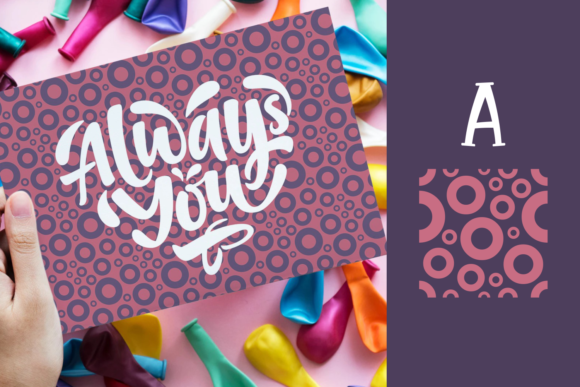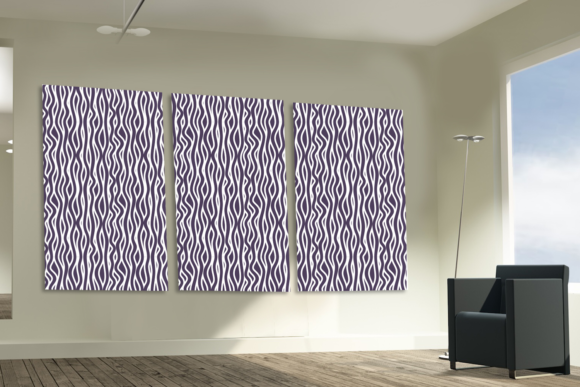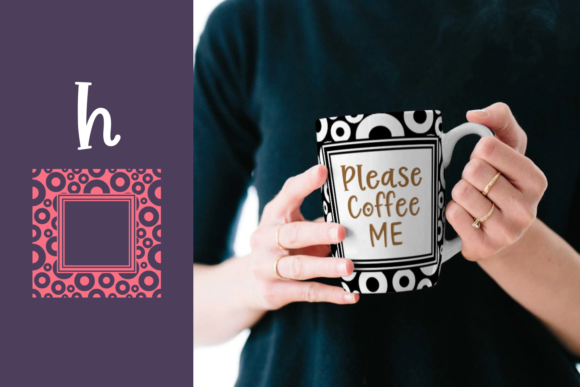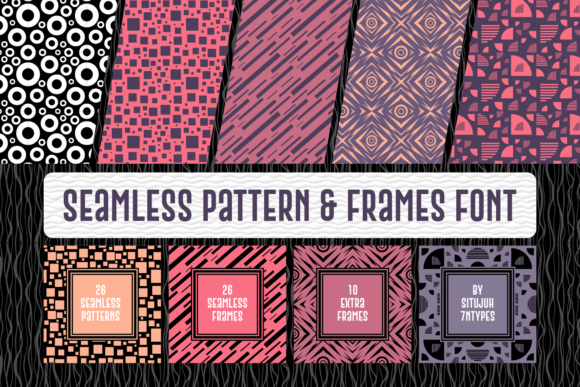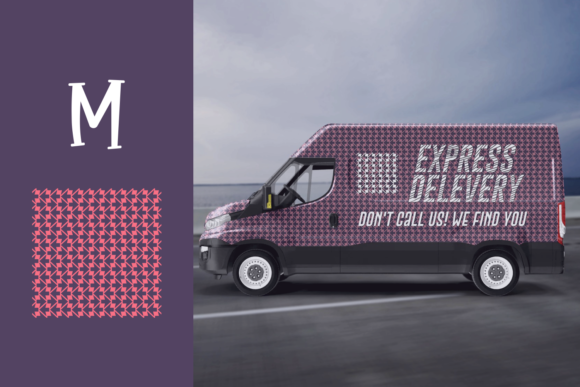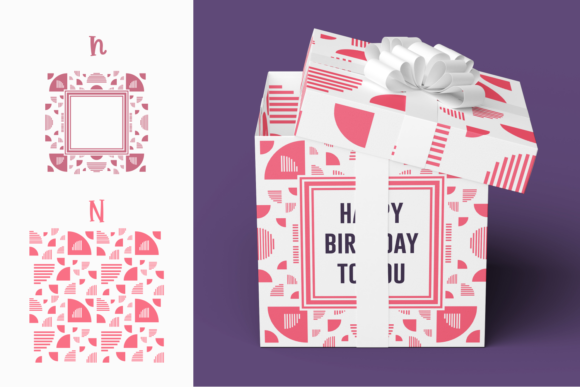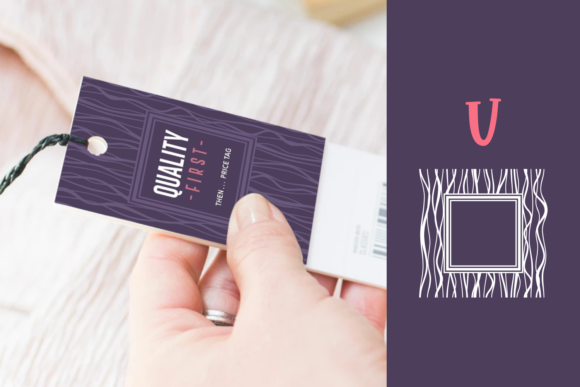
Seamless Pattern & Frames Font
About Seamless Pattern & Frames Font
Introducing our amazing Patterns and Frames dingbat font! This font is packed with a wide variety of patterns and frames that will add a unique and artistic touch to your designs. From squares and arrows to circles and abstract patterns, this font offers a diverse range of options for all your design needs.
Here’s how you can make the most of this incredible dingbat font:
1. Background Patterns: Use the patterns from the font to create stunning backgrounds for your designs. Whether it’s for posters, invitations, or digital artwork, the patterns will instantly add depth and visual interest to your compositions.
2. Frame Your Content: Choose from a range of beautifully designed frames to enclose your text, images, or other visual elements. The frames will give your content a polished and professional look, making it stand out in any design project.
3. Decorative Elements: The dingbat font also includes various decorative elements such as swirls, flourishes, and ornaments. These can be used to embellish your designs, adding a touch of elegance and sophistication.
4. Seamless Patterns: Many of the patterns in the font are seamlessly tileable, allowing you to create larger patterns and backgrounds without any visible seams. This is especially useful for creating repeatable patterns for textiles, wallpapers, and website backgrounds.
5. Mix and Match: Don’t be afraid to experiment and combine different patterns and frames from the font. By mixing and matching various elements, you can create truly unique and eye-catching designs that reflect your personal style.
Remember to adjust the size, color, and opacity of the patterns and frames to suit your specific design needs. Whether you’re working on print or digital projects, this dingbat font will add an extra layer of creativity and visual appeal to your designs.
So go ahead and unleash your creativity with our Patterns and Frames dingbat font, and let your designs shine with unique and captivating patterns and frames!